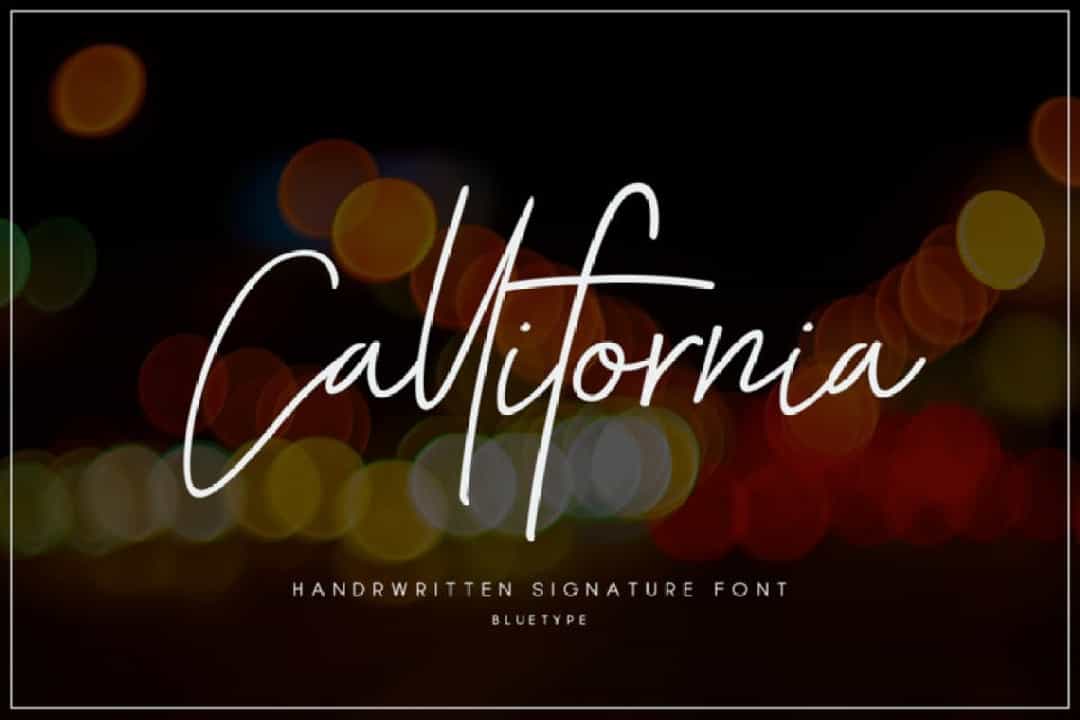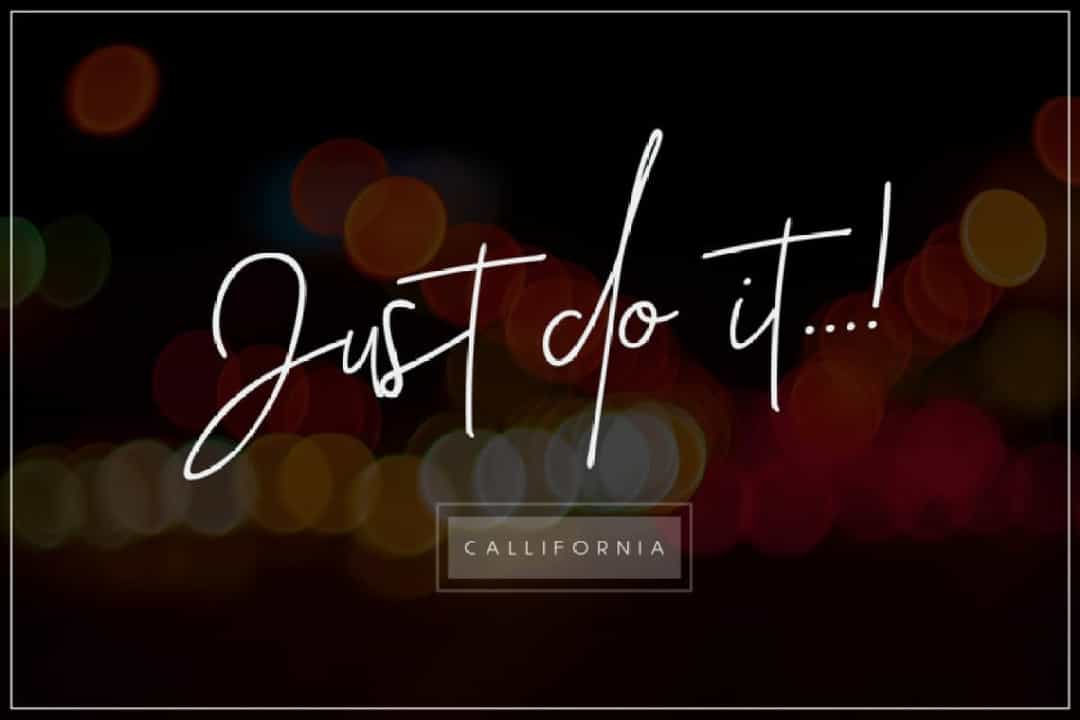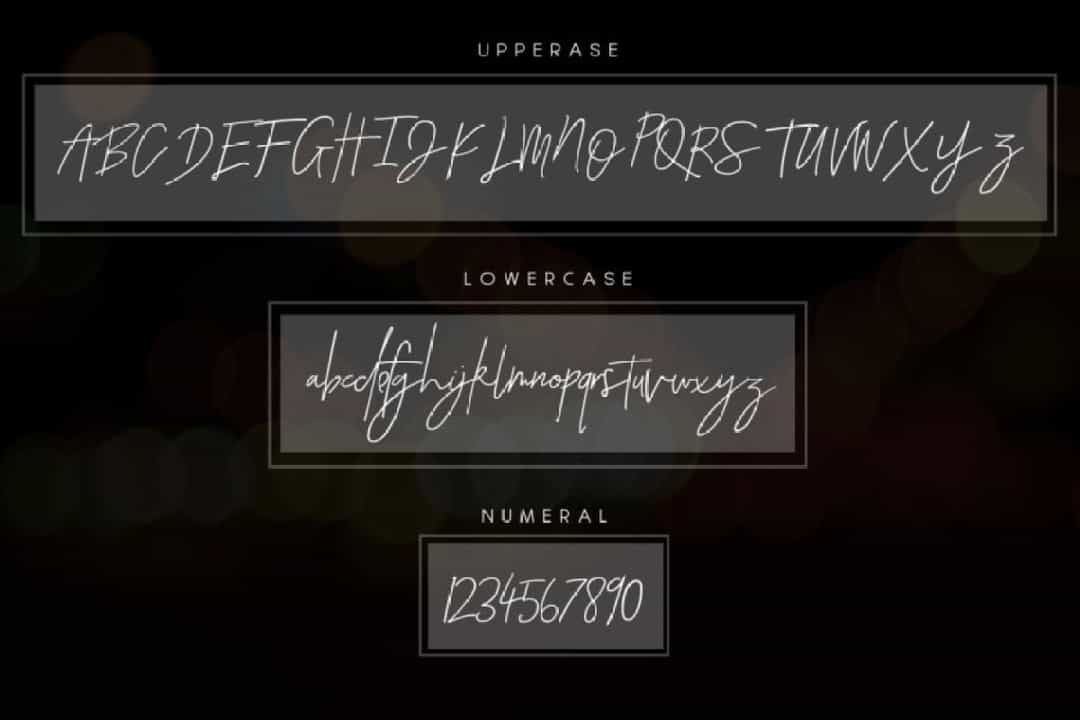
Callifornia is an elegant signature script font which has Open Type features and contains numerals, punctuation, ligature and multi languages. This font is perfect for logos, branding, and wedding projects and advertisements, social media posts, product packaging, product design, labels, watermark invitations, stationery, invitations and all other projects that require an elegant touch.